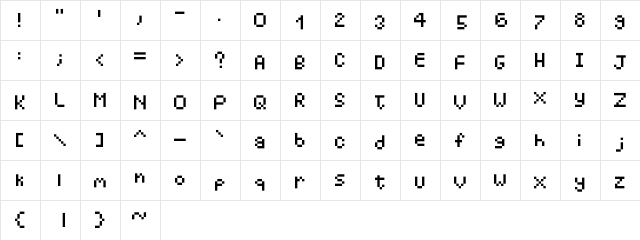
Distorted Regular
Design Context for Distorted Typeface
Distorted takes a measured approach to typography — its balanced proportions and neutral character make it a reliable workhorse for both digital and print work.